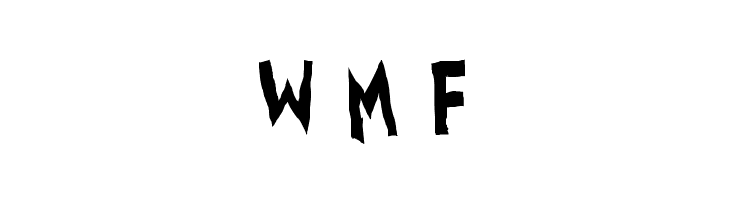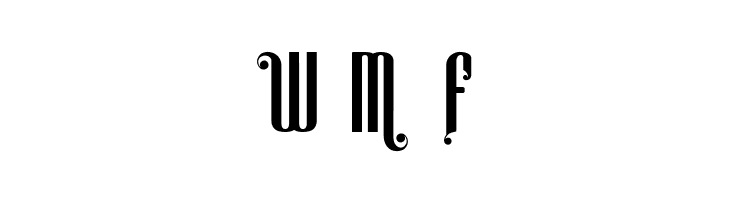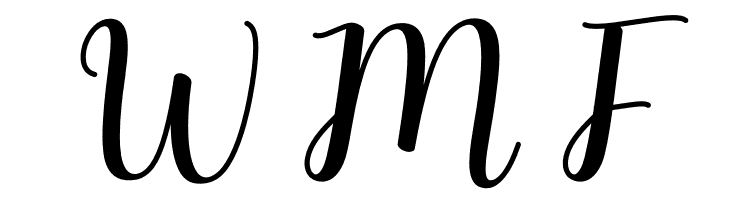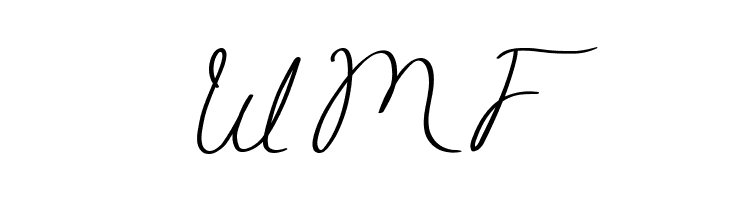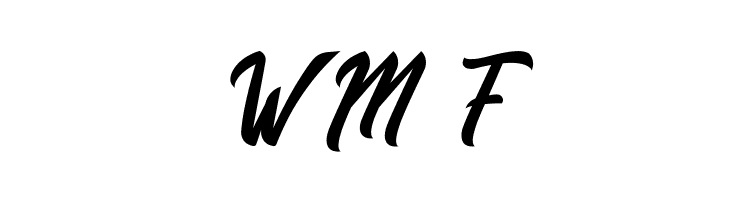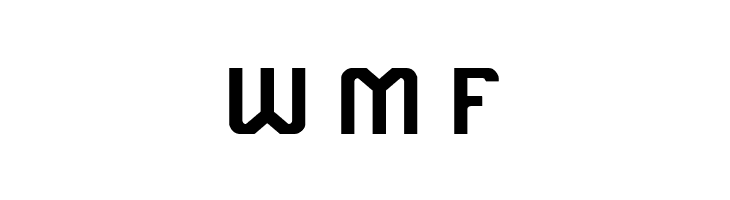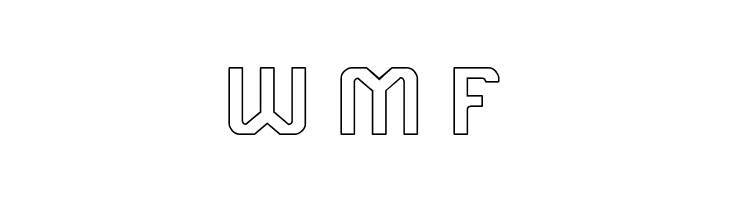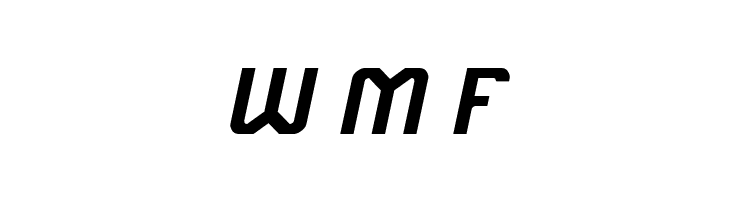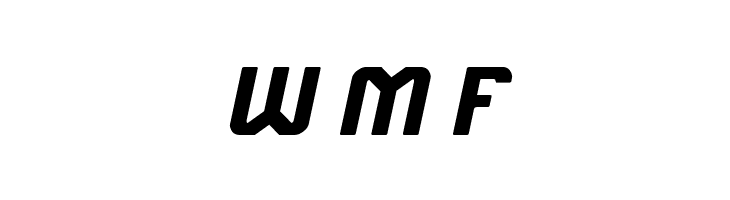
A lively handwritten font with fluid, dynamic strokes and a playful appearance.
A tall, narrow font with high contrast, perfect for elegant and modern designs.
A bold, handwritten font with a casual and artistic style.
A bold, expressive handwritten script font with playful curves and dynamic strokes.
A decorative and ornate font with intricate details and flourishes.
An elegant script font with flowing, cursive strokes and intricate loops.
Halloween-themed decorative dingbat font with bold, spooky icons.
A bold, expressive handwritten font with dynamic strokes.
A playful, handwritten font with bold uppercase and cursive lowercase letters.
A playful, rounded handwritten font with smooth curves and consistent spacing.
A futuristic, geometric font with outlined letterforms and sharp angles.
A bold, futuristic font with geometric and angular letterforms.
A bold, futuristic font with geometric, blocky characters.
A bold, italicized font with a futuristic, dynamic style.
A futuristic italic font with angular, geometric shapes and a sleek design.
A cursive, handwritten font with elegant, flowing lines.
A decorative cursive font with elegant loops and swashes.
A bold, cursive font with a flowing, handwritten style.
A lively and expressive handwritten font with fluid, dynamic strokes.
An ornate and decorative serif font with floral embellishments.
A bold, expressive brush script font with a modern, handwritten style.
A whimsical font with heart-shaped elements, perfect for romantic designs.
A bold, distressed font with a torn, rugged appearance.
A bold, distressed font with a vintage, rugged texture.
A casual and elegant handwritten script font with fluid strokes.
A playful, rounded font with bold, smooth curves and consistent spacing.
A bold, rugged font with a hand-drawn, dynamic style.
A bold, jagged, and dynamic font with a hand-cut appearance.
A bold, italicized font with a dynamic, brush-like style.
A bold, angular, and italicized font with a dynamic, edgy style.
A playful, handwritten font with fluid, interconnected strokes and a whimsical charm.